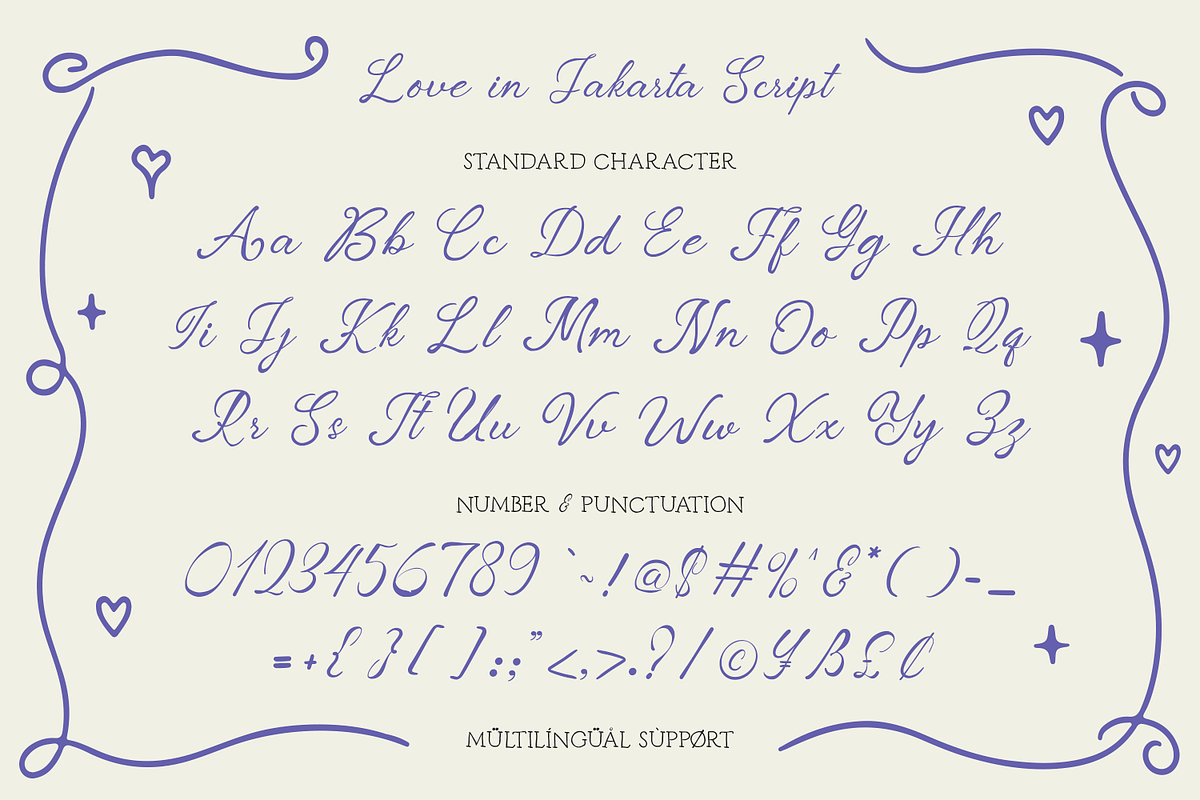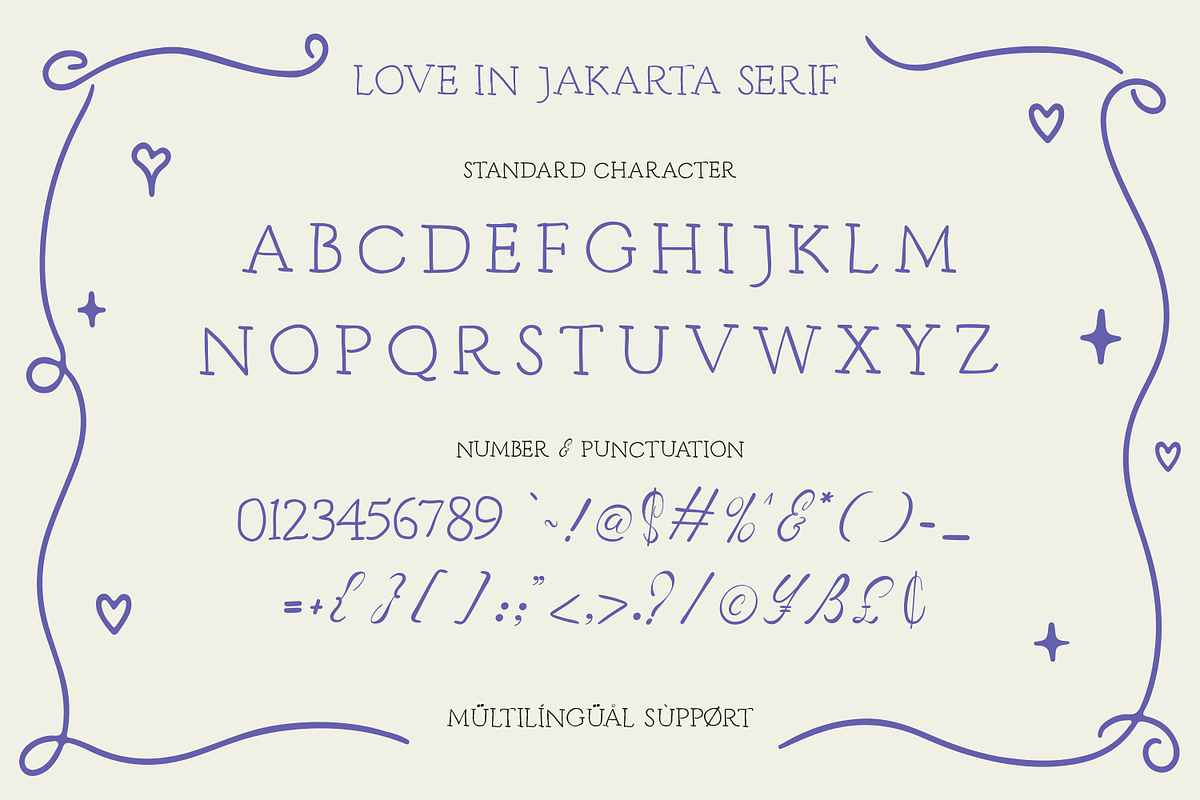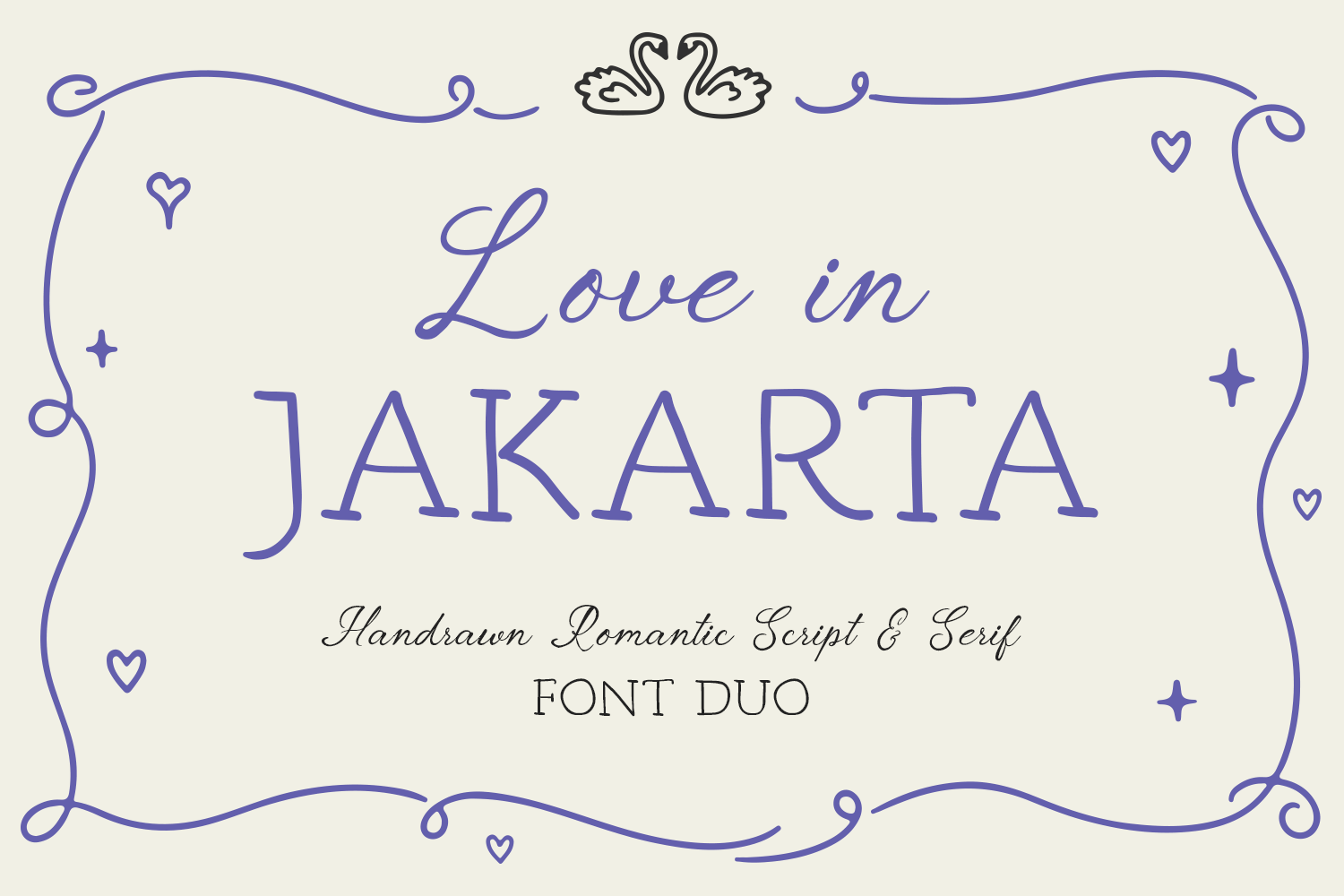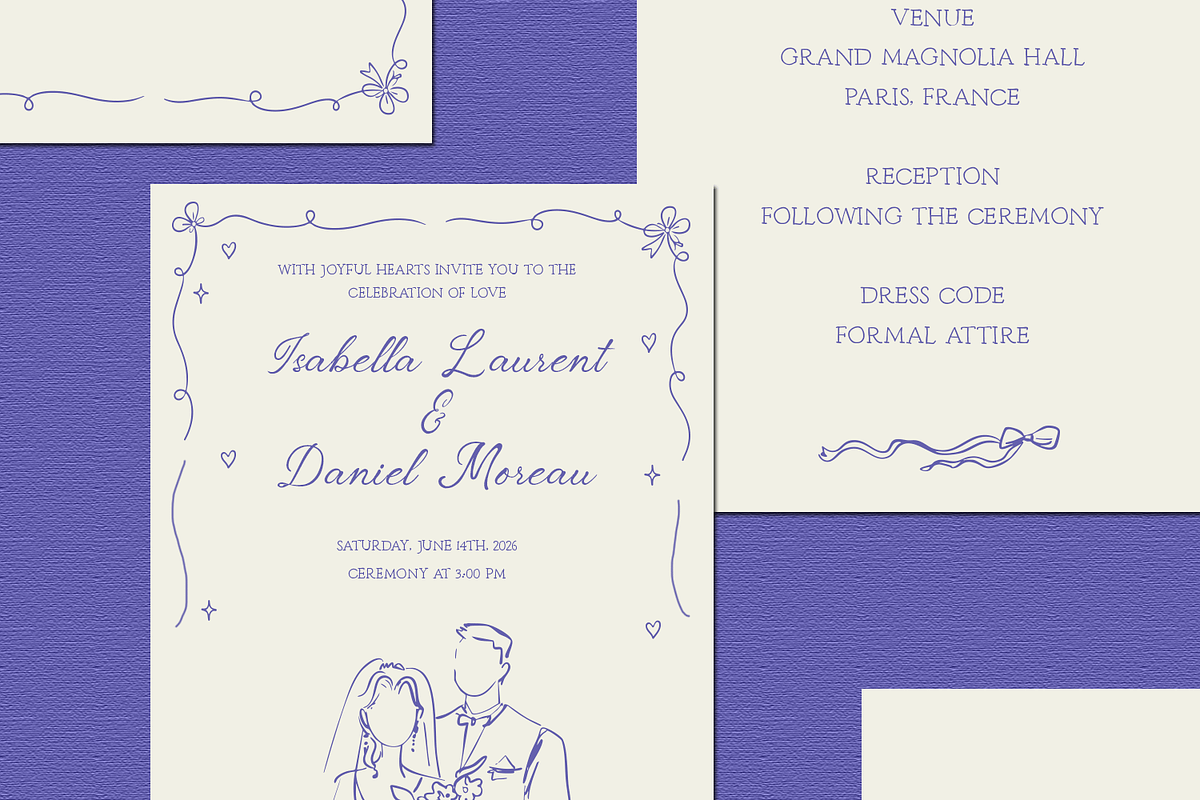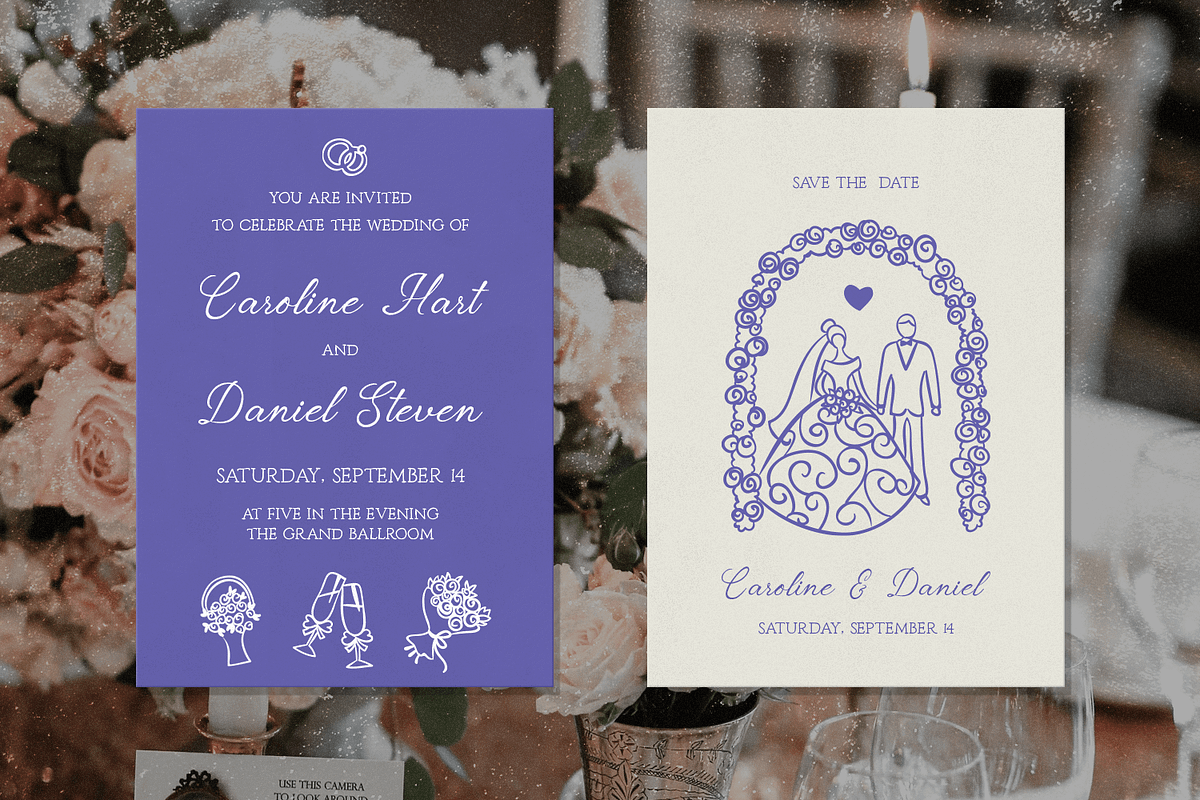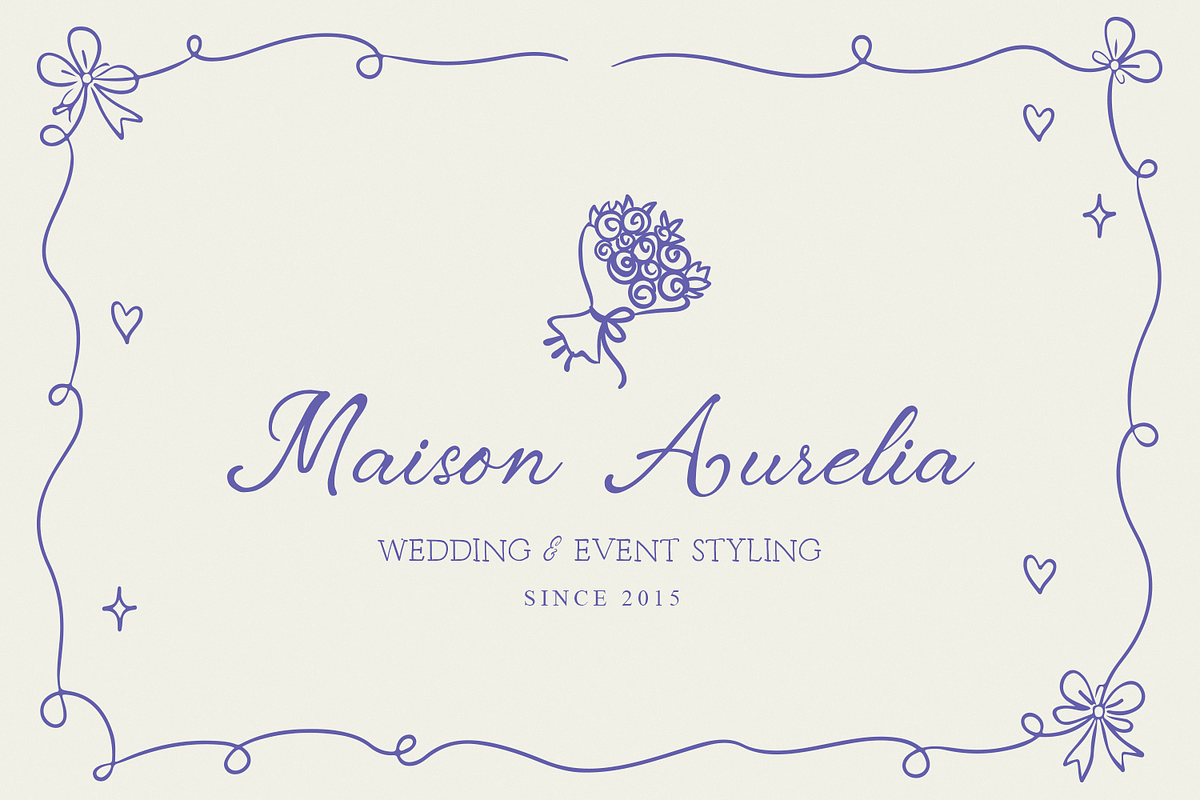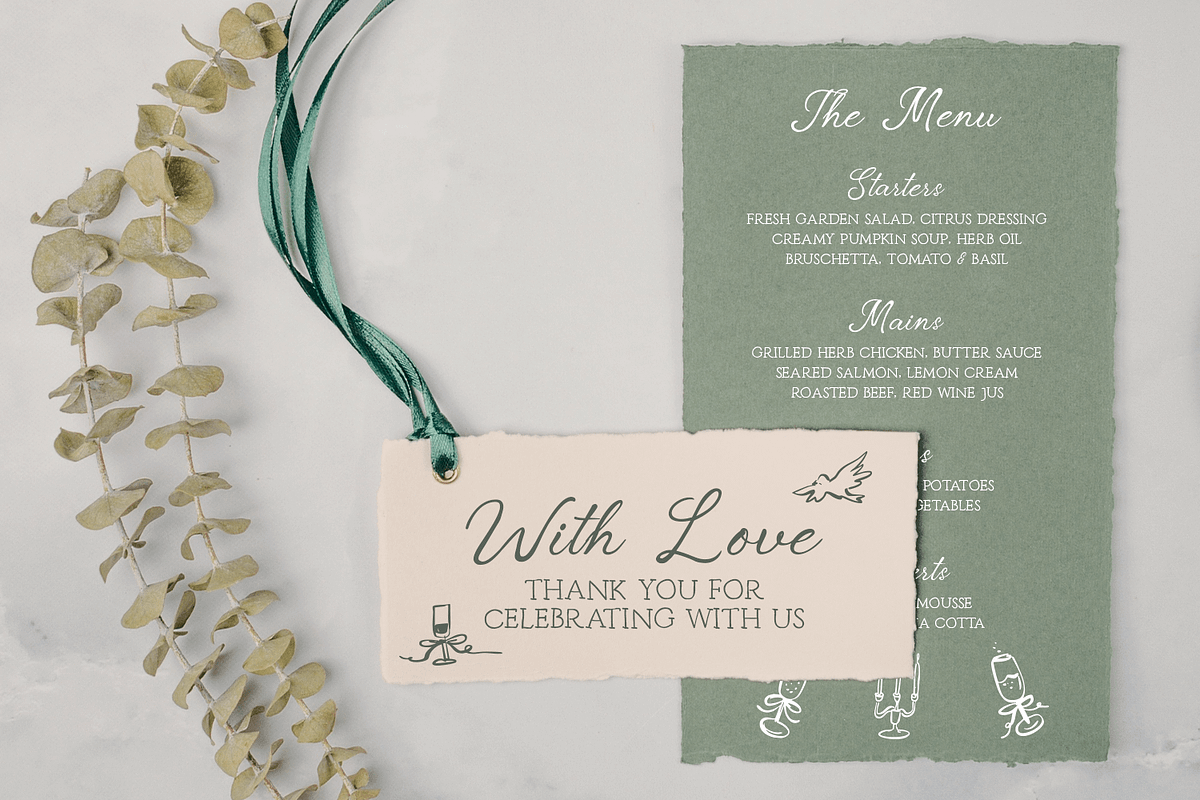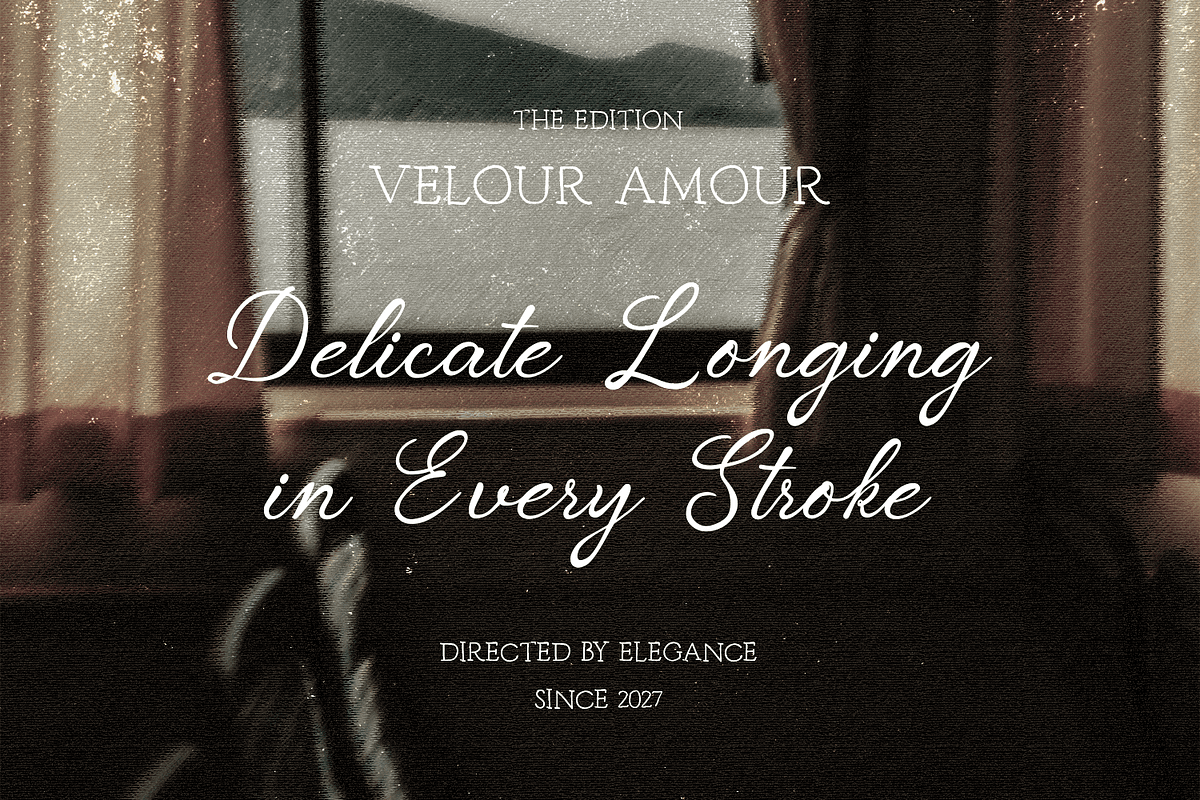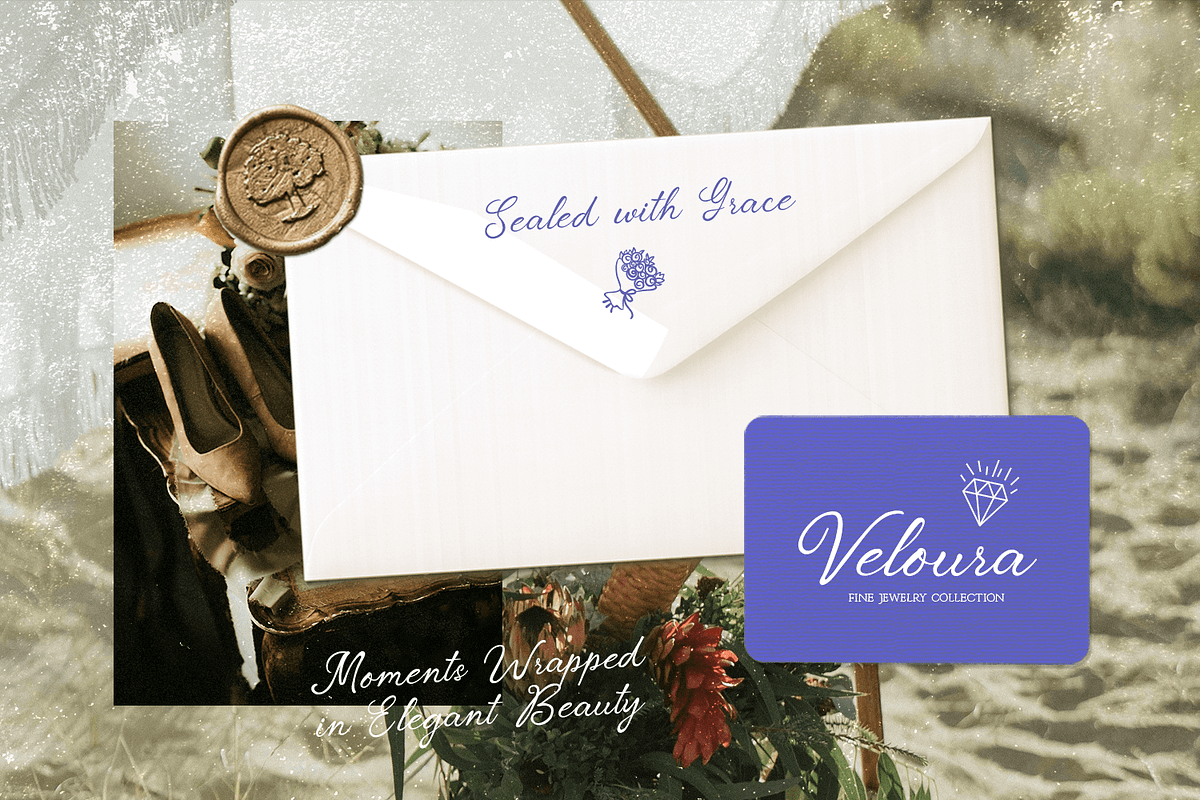
Love in Jakarta - Whimsical Font Duo
Introducing Love in Jakarta - Whimsical Font Duo
Love in Jakarta is a beautifully crafted font duo that combines a romantic handwritten script with a charming decorative serif. Designed with a soft, hand-drawn feel, this pairing creates a perfect balance between elegance and playfulness. The flowing script adds warmth and intimacy, while the serif brings structure and timeless sophistication to your typography.
Ideal for wedding invitations, save-the-date cards, Valentine designs, branding, logos, social media content, branding, logotypes, wedding invitations, romantic quotes, labels, social media posts, advertisements, product packaging, product designs, label, photography, watermark, invitation, stationery, packaging, and lifestyle projects, Love in Jakarta helps you create heartfelt and stylish visuals effortlessly. Whether you're designing for romance-themed concepts or elegant personal branding, this font duo delivers charm, harmony, and character in every letter.
- Multilingual Support including Afrikaans, Albanian, Basque, Catalan, Danish, Dutch, English, Estonian, Faroese, Filipino, Finnish, French, Galician, German, Icelandic, Indonesian, Irish, Italian, Malay, Norwegian Bokmål, Portuguese, Spanish, Swahili, Swedish, Zulu